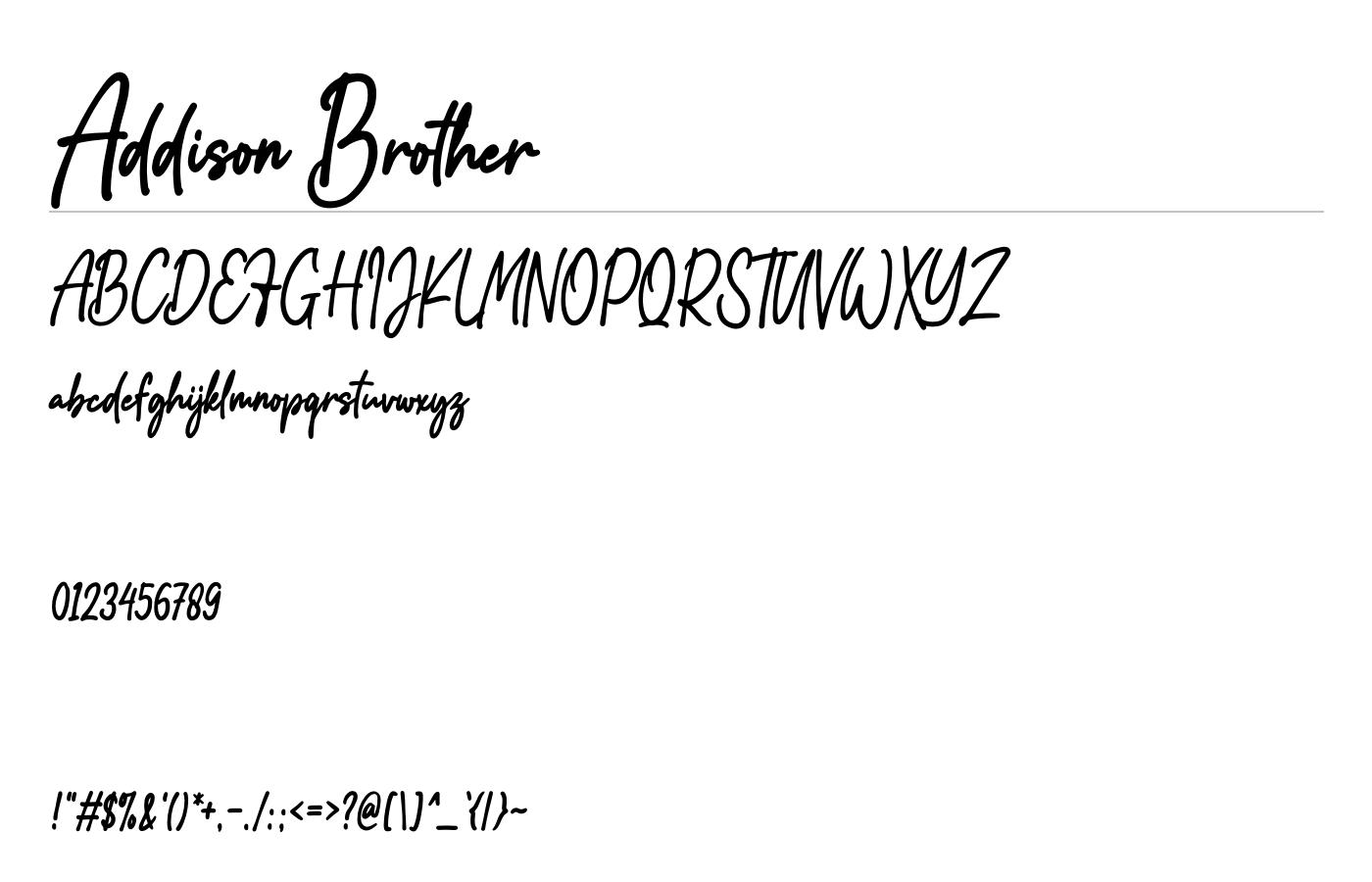
Addison Brother is a lively and stylish script font characterized by its smooth, flowing strokes and a casual yet elegant feel. With its slender, slightly condensed letterforms and dynamic contrast, it conveys a personal handwritten touch that works beautifully for branding, invitations, and creative projects seeking a friendly but sophisticated vibe. This font's balanced readability and charming personality make it ideal for logos, headlines, and other eye-catching uses where warmth and style are essential.
Addison Brother Font
| Designer | Siti Nurjanah |